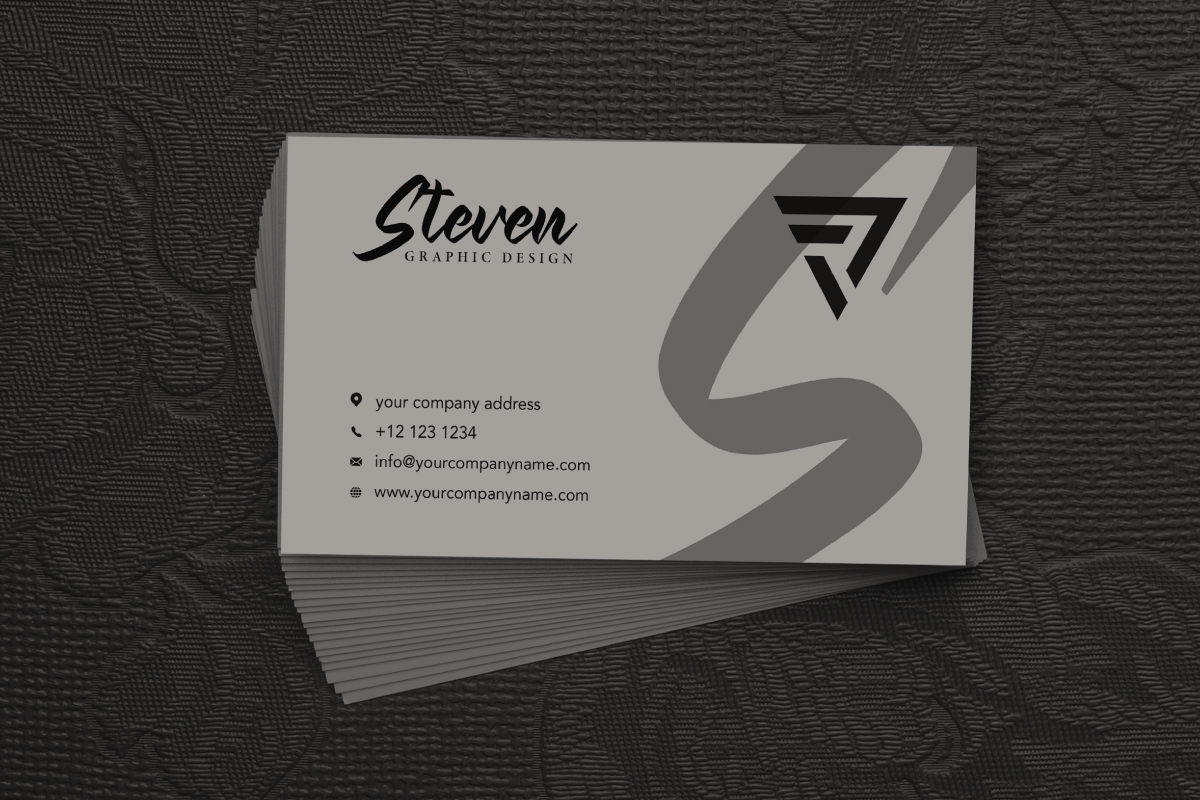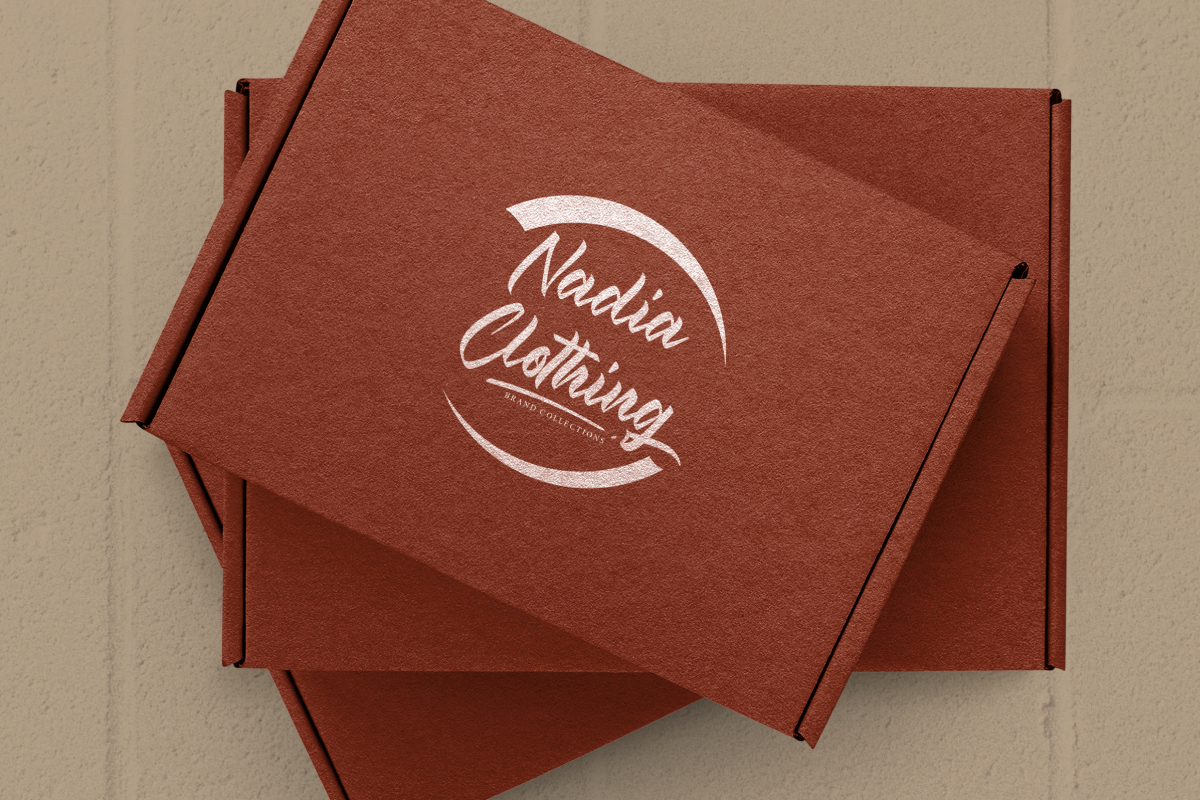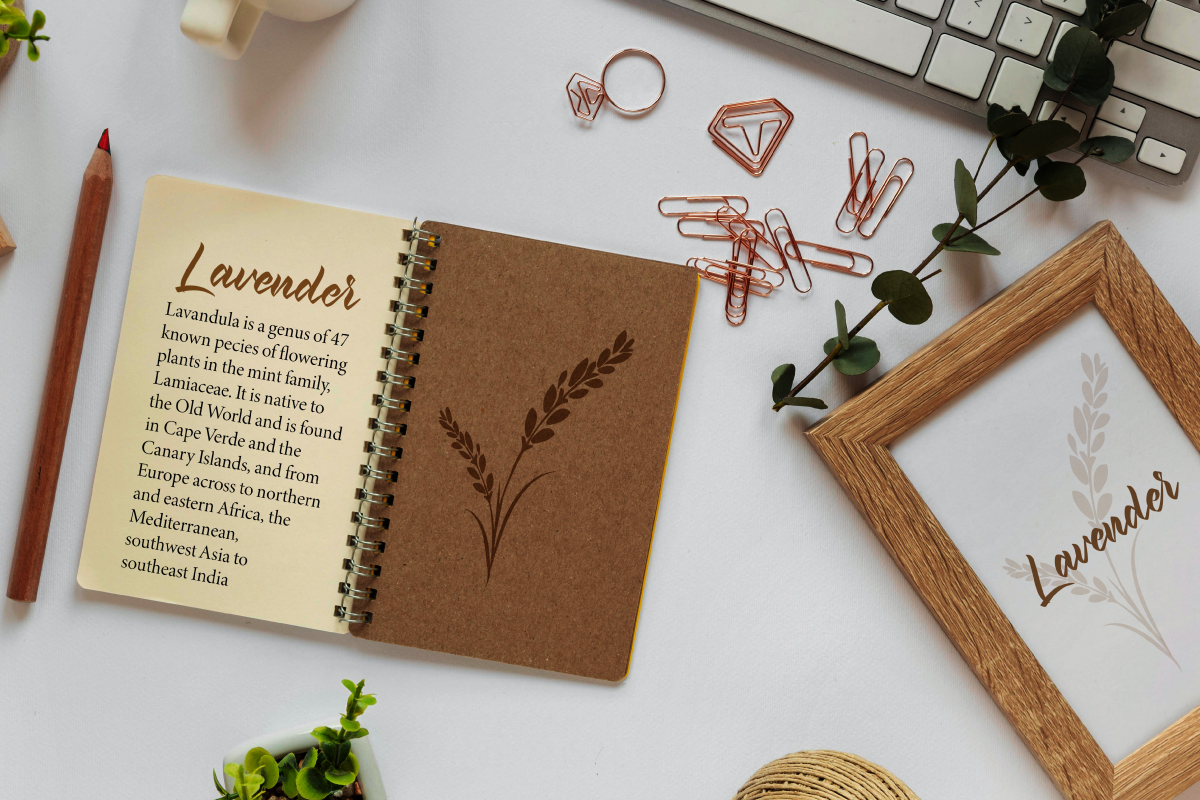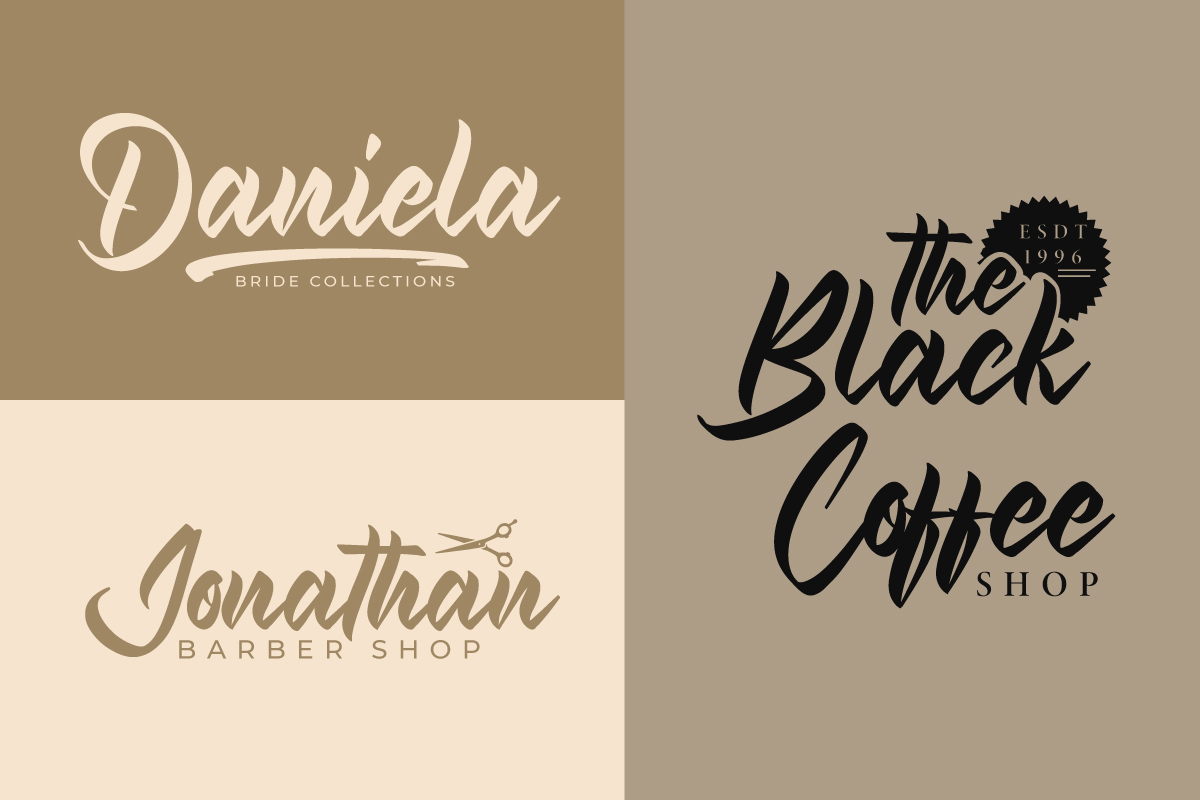
Marysville Font
Marysville Font is a stunning brush handwriting signature font – made by RaisProject. Marysville brush Font has beautiful uppercase, lowercase letters, numerals, a range of punctuation and ligatures to make it stunning.